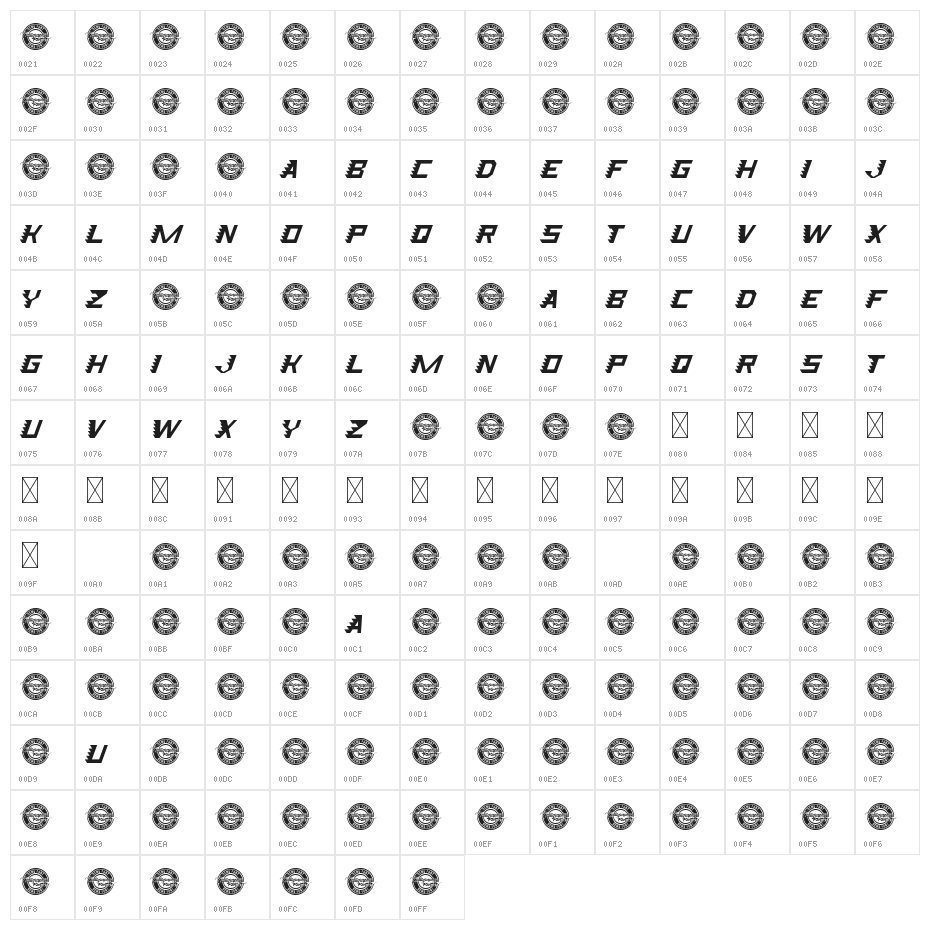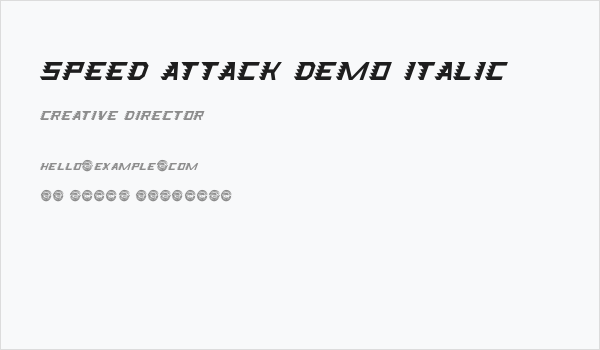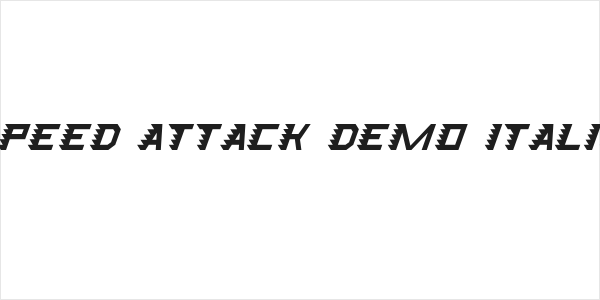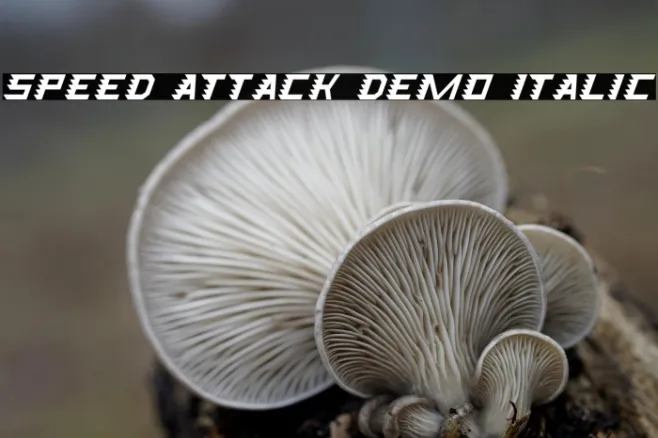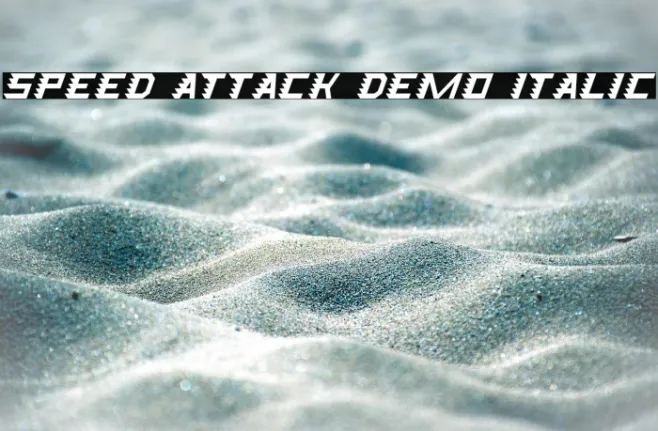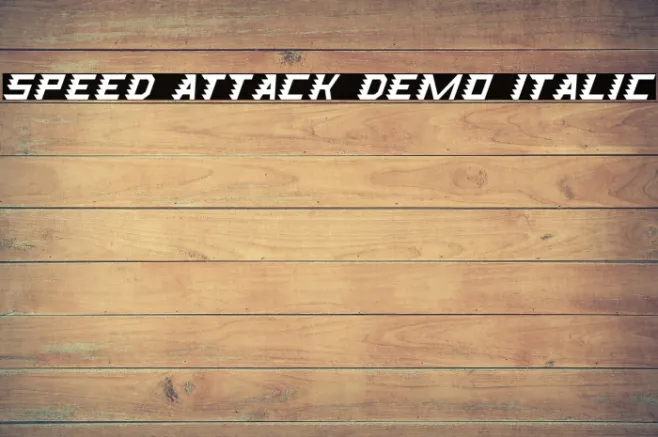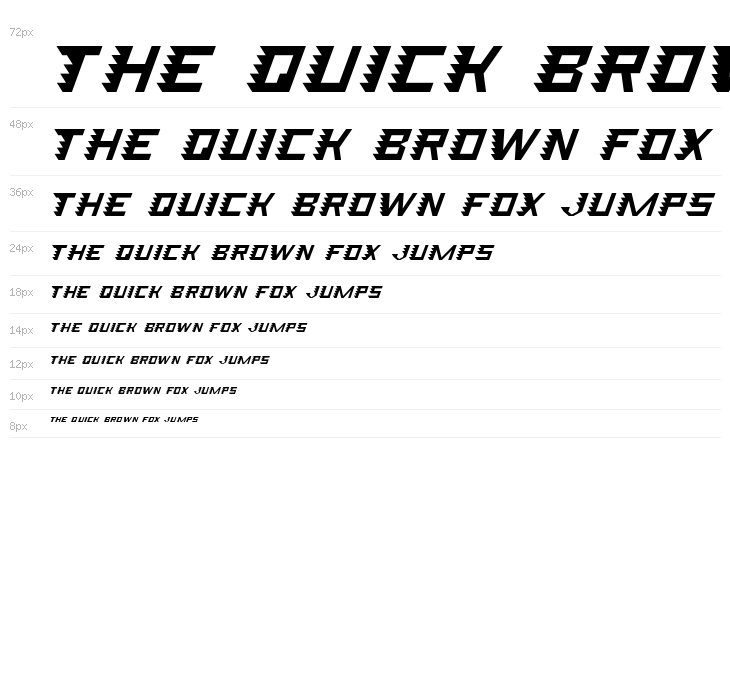
Speed Attack Demo Italic Font
Speed Attack Demo Italic Description
This font features a bold, dynamic design with sharp, angular edges that give it a sense of speed and aggression. The italicized style enhances its energetic appearance, making it ideal for projects that require a sense of motion or excitement. Each character is crafted with precision, maintaining a consistent slant and sharpness throughout. The uppercase letters are particularly striking, with a futuristic and edgy aesthetic that stands out. The font's unique style is both modern and distinctive, making it suitable for a variety of creative applications.